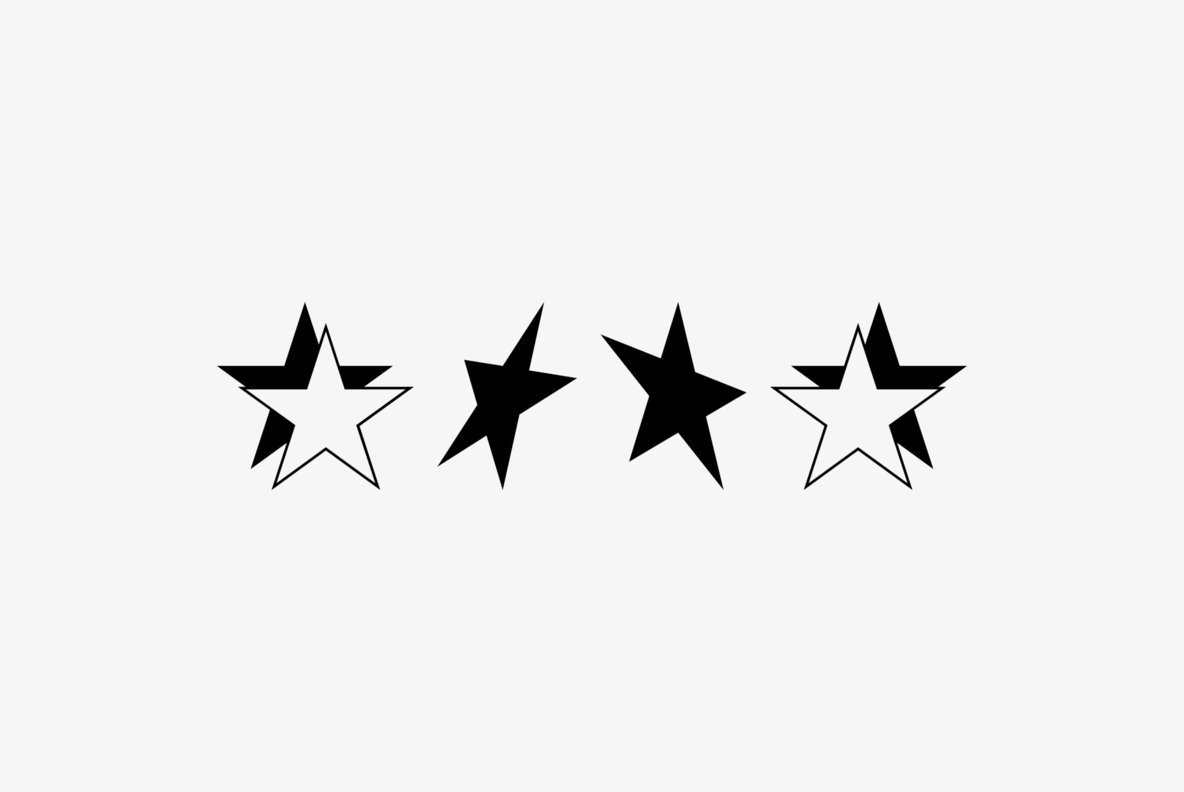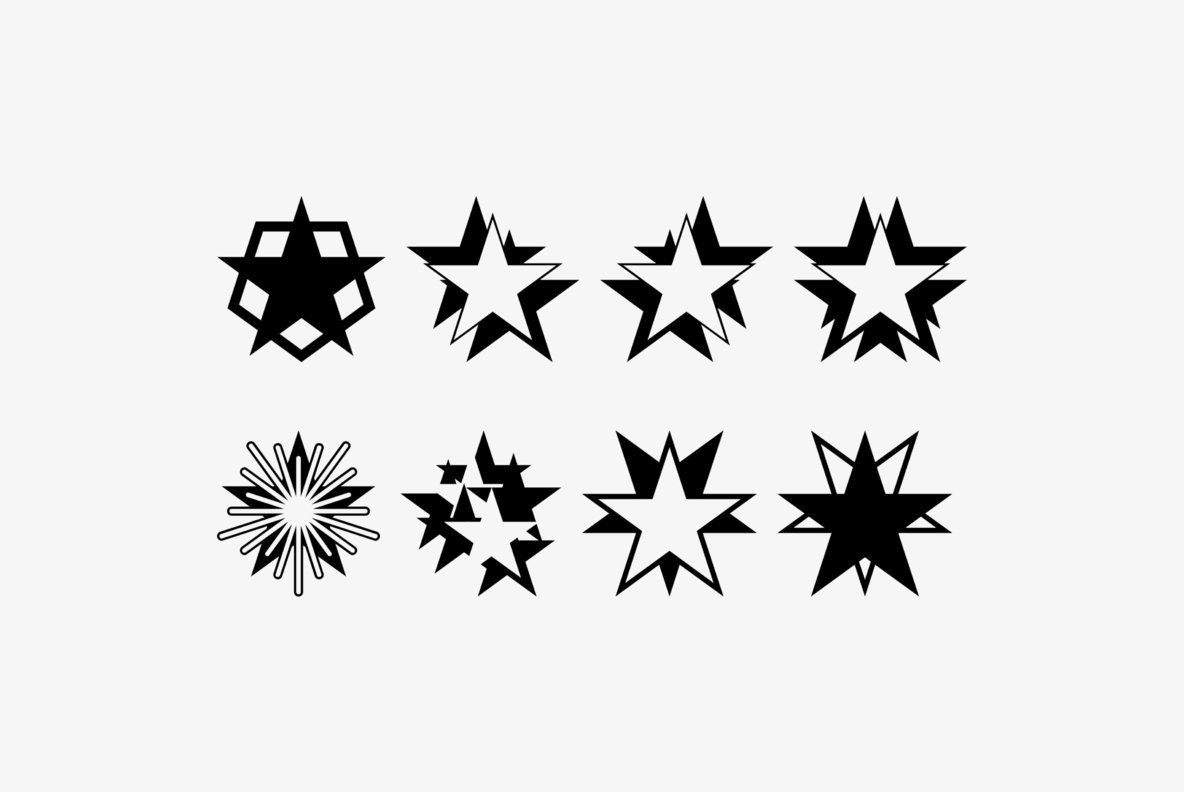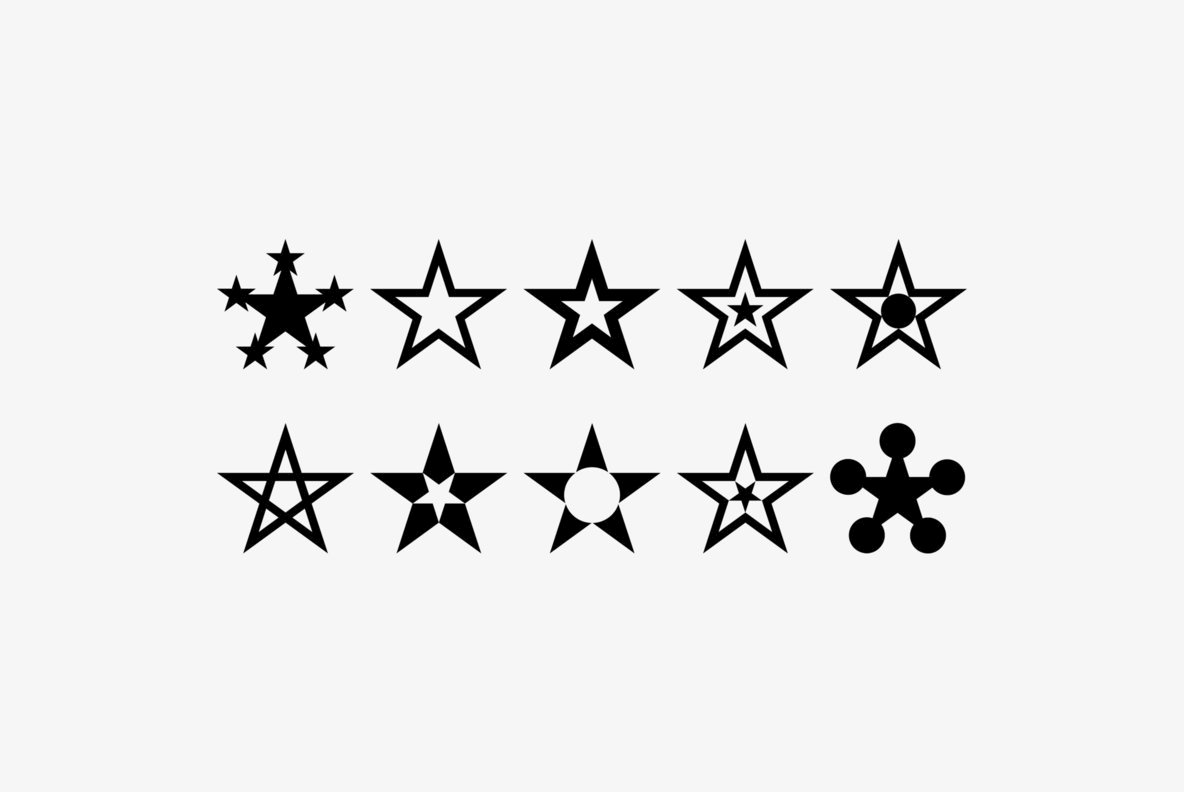
Star Assortment Font
Star Assortment
Immerse yourself in the geometric allure of Gerald Gallo's Star Assortment. This collection boasts 47 distinct five-pointed star designs, each crafted to provide endless possibilities for your creative projects. Ideal for designers seeking to incorporate celestial elegance into their work, these stars are perfect for diverse applications from branding elements to decorative motifs.Star Assortment: A Spectrum of Five-Pointed Elegance
Gerald Gallo is a professional graphic designer.While designing trademarks and logotypes, Gerald often designed unique lettering. It was a natural step to create entire alphabets from some of these designs. However, it was very difficult to have a font produced before the advent of the personal compute...